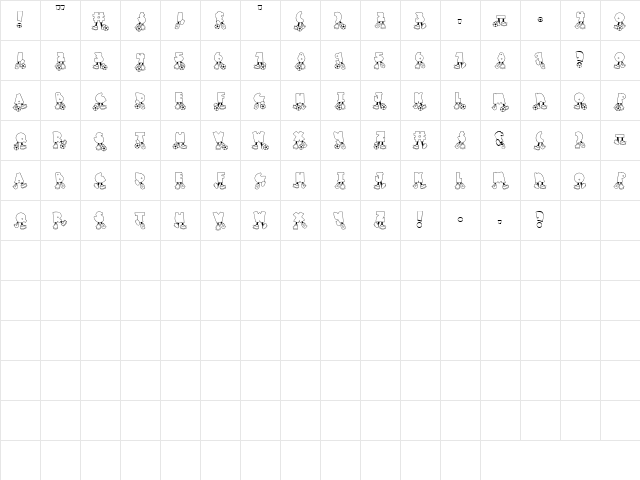
LD Soccer Regular Font Preview
LD Soccer Regular
Design Context for LD Soccer Typeface
LD Soccer is a composed and adaptable typeface that performs quietly and consistently across a wide range of design contexts.